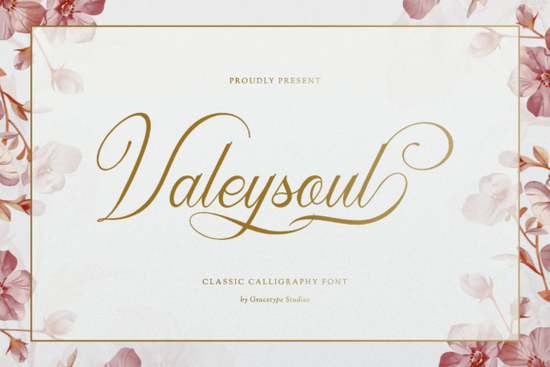
What makes Valeysoul Font different from other signature scripts?
Valeysoul isn’t just another handwriting font. Its personality comes through in elongated lowercase loops, dramatic ascenders, and a forward-leaning italic slant that feels genuinely alive. The contrast between thick downstrokes and hair-thin upstrokes replicates real ink flow, giving text a rhythmic, graceful baseline. Unlike many script fonts that feel stiff or overly polished, this one keeps a slight edge of ink-on-paper spontaneity. That’s why so many designers reach for it when they need a custom luxury feel without commissioning a lettering artist.
Where does this font shine the most?
Valeysoul works beautifully wherever a refined, handmade look matters. You’ll see it on luxury wedding invitation suites, from the main couple’s names to the RSVP card headers. It’s equally at home on premium fashion brand identity systems think hang tags, lookbook titles, and boutique storefront signage. High-end beauty product packaging benefits from its delicate yet confident strokes, while boutique wine labels and artisanal food branding borrow its authentic signature vibe. Even social media managers use it for prestigious Instagram or Pinterest title cards that need to stand out without screaming.
How practical is Valeysoul for everyday creative work?
How does Valeysoul compare to other script fonts on Creative Fabrica?
Can Valeysoul Font work for both digital and print?
Yes, and the key is proper sizing. In digital displays, the thin upstrokes can become fragile at very small sizes, so save it for headings, titles, and hero text where its details pop. For print, the high contrast looks most luxurious at 24pt and above on matte or textured paper. Many wedding suite designers pair Valeysoul with a clean serif like Cormorant Garamond or a light sans-serif for body copy to let the script take center stage. If you’re creating social media graphics, add a subtle shadow or outline effect to make those hairlines visible even on mobile screens.
A quick checklist before you start designing:
- Open the font in your preferred tool and explore all stylistic alternates for custom swashes.
- For wedding suites, pair Valeysoul with a neutral serif for guest names and body text.
- On social media graphics, increase the stroke contrast slightly with a white outline if the background is dark.
- If you sell physical items, save your design as an SVG or flattened PNG to preserve the delicate strokes before sending to print.
Valeysoul brings an ink-on-paper authenticity that feels both timeless and trendy. When you want a signature look that whispers luxury instead of shouting, this font more than earns its place in your design toolkit.